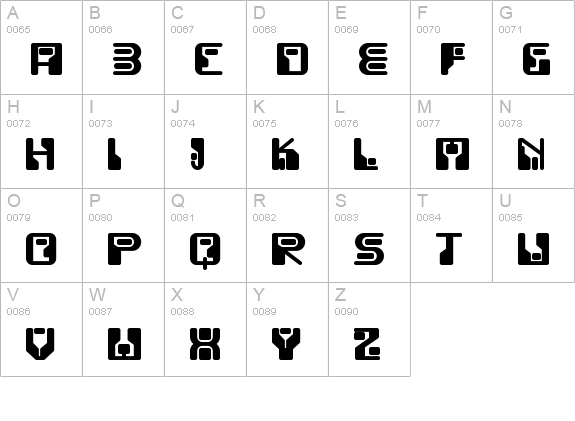
Funky Rundkopf NF font is a playful and energetic display typeface that brings a unique twist to any design project. With its rounded shapes and quirky details, this font exudes a fun and funky vibe that is perfect for adding a touch of personality to your work. Whether you're creating posters, logos, or social media graphics, Funky Rundkopf NF will make your text stand out in a bold and vibrant way. The best part? Funky Rundkopf NF font is completely free to download at FontsMarket.com. This means you can unleash your creativity without worrying about breaking the bank. So go ahead and give your designs a fresh and funky look with this eye-catching font today!